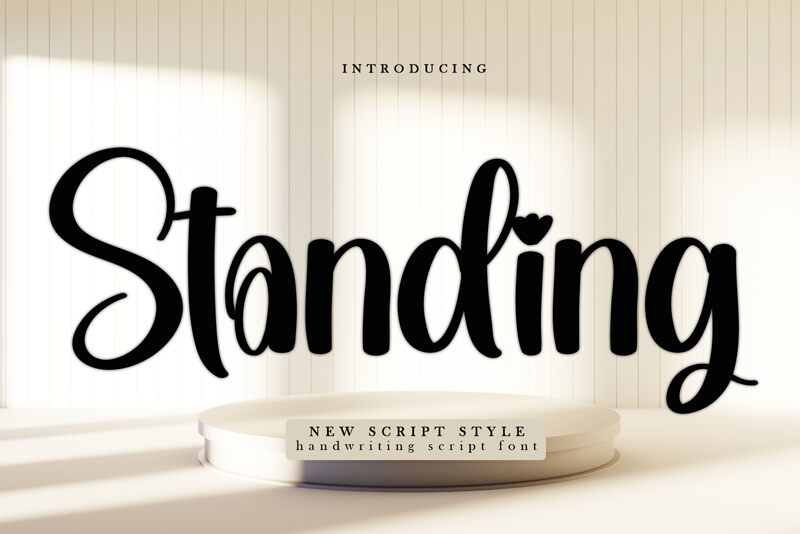
Standing font by creatype designer is a free font known for its modern and expressive script design. This font stands out with a smooth flow, which gives it a refined, casual vibe. It is approachable and stylish, perfect for creating a warm and friendly impression.
Whether you're going for a chic or an informal look, this font boasts a versatility that’s hard to beat. Use Standing font in greeting cards, invitations, logos, branding, websites, packaging, blogs, social media posts, advertising, or any personal project where you want to make a statement with subtle elegance.
This font features a refined calligraphic influence that feels modern and fresh. Its versatility makes it suitable for a variety of creative projects, ranging from letterheads and titles to stationery.